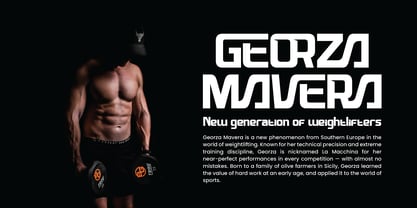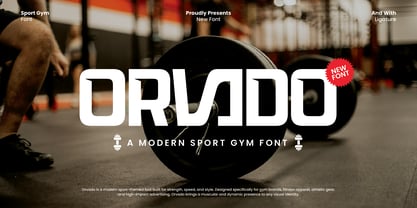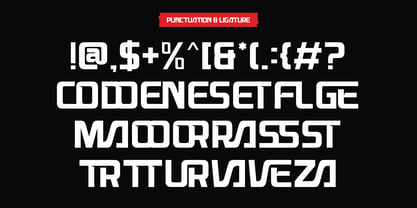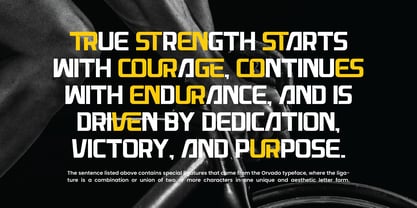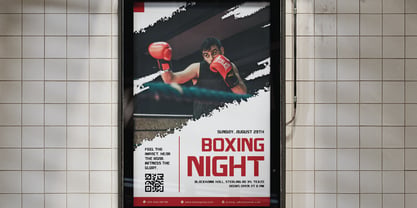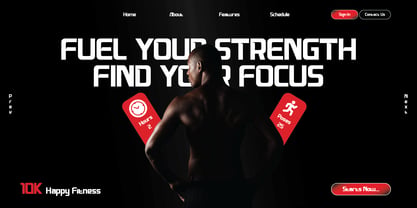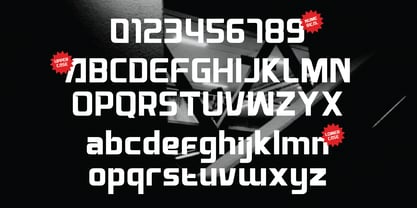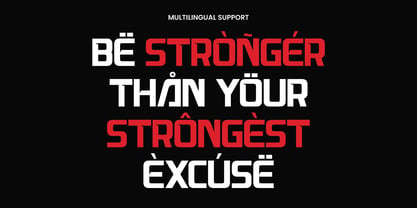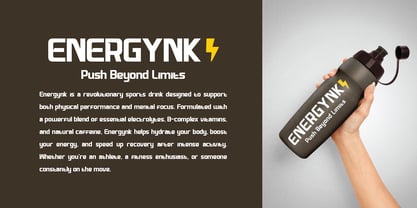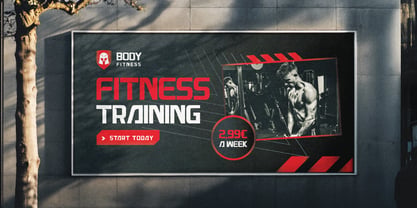
Orvado
by Flawlessandco
ORVADO is a modern display font crafted for the world of sports, gym, and dynamic branding. With its bold structure, sharp edges, and powerful presence, ORVADO brings energy and strength to every design it touches. Whether you're working on athletic apparel, gym promotions, or bold logo projects, ORVADO delivers impact and clarity in every letterform. It captures the essence of movement and discipline, making it a go-to choice for modern fitness brands and high-intensity design concepts.
Features :
Multilingual, Uppercase alphabet A-Z, Lowercase alphabet a-z, Numbers 0-9, Some punctuation. Alternates & Ligatures